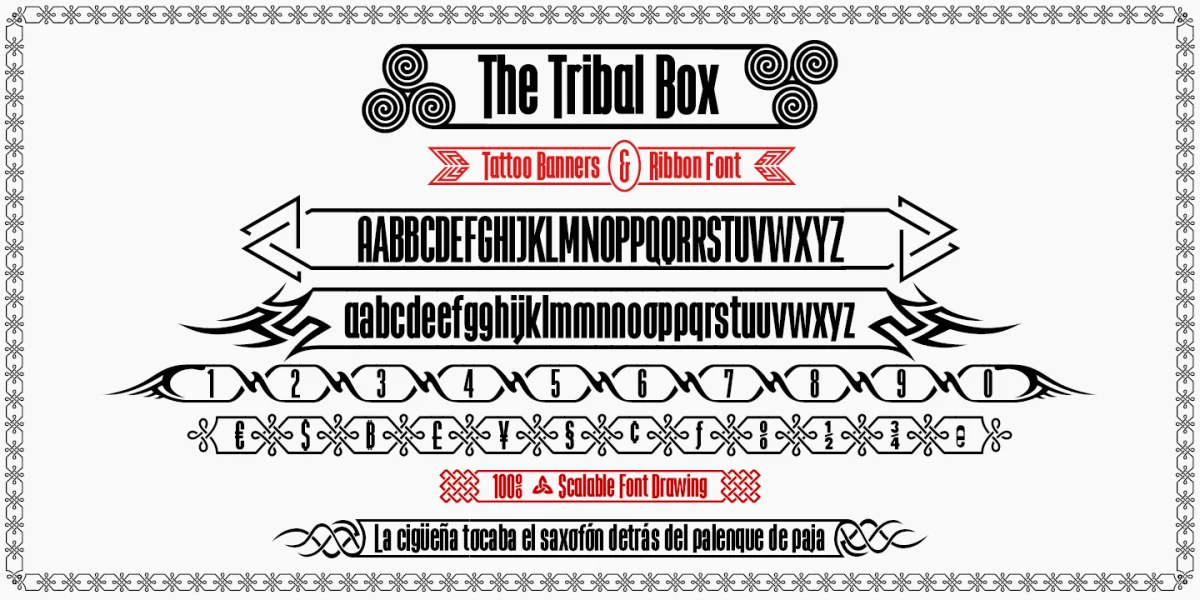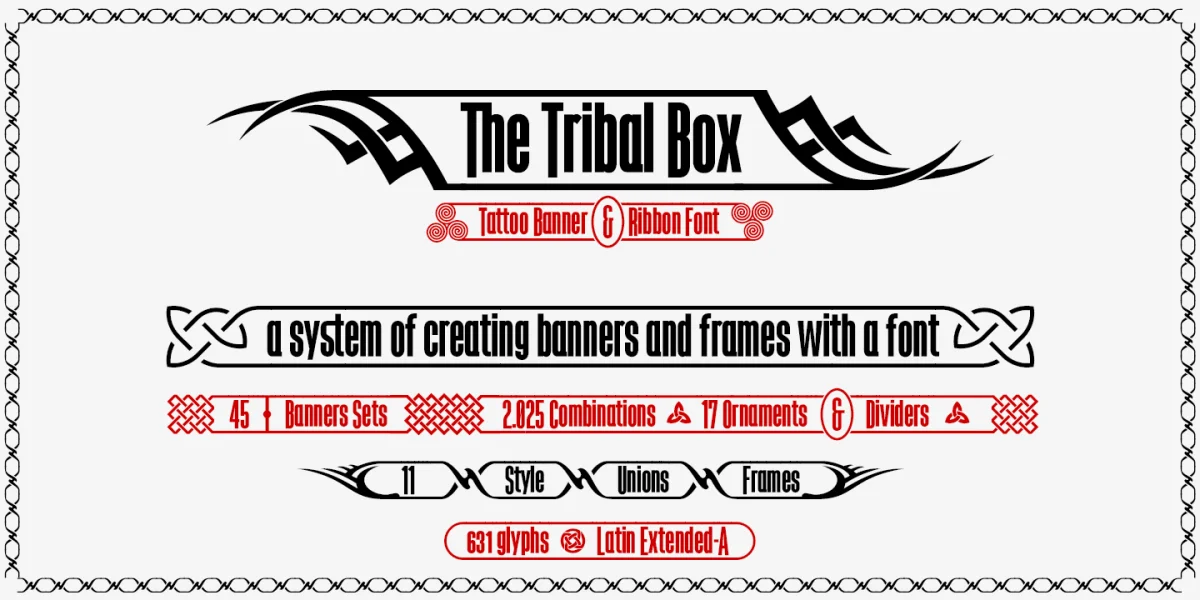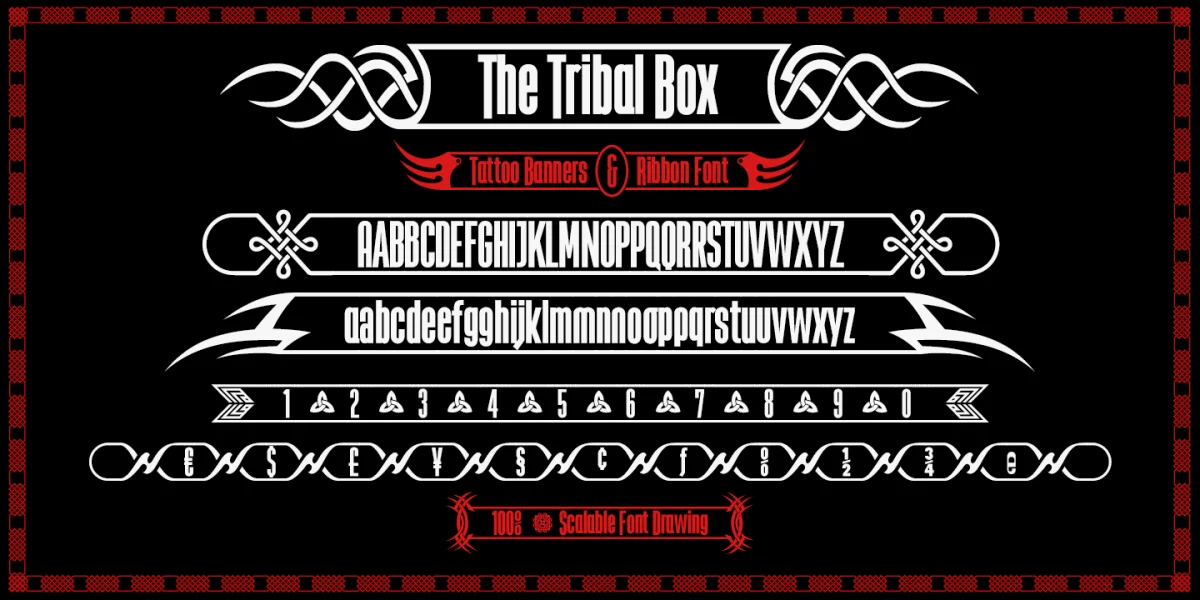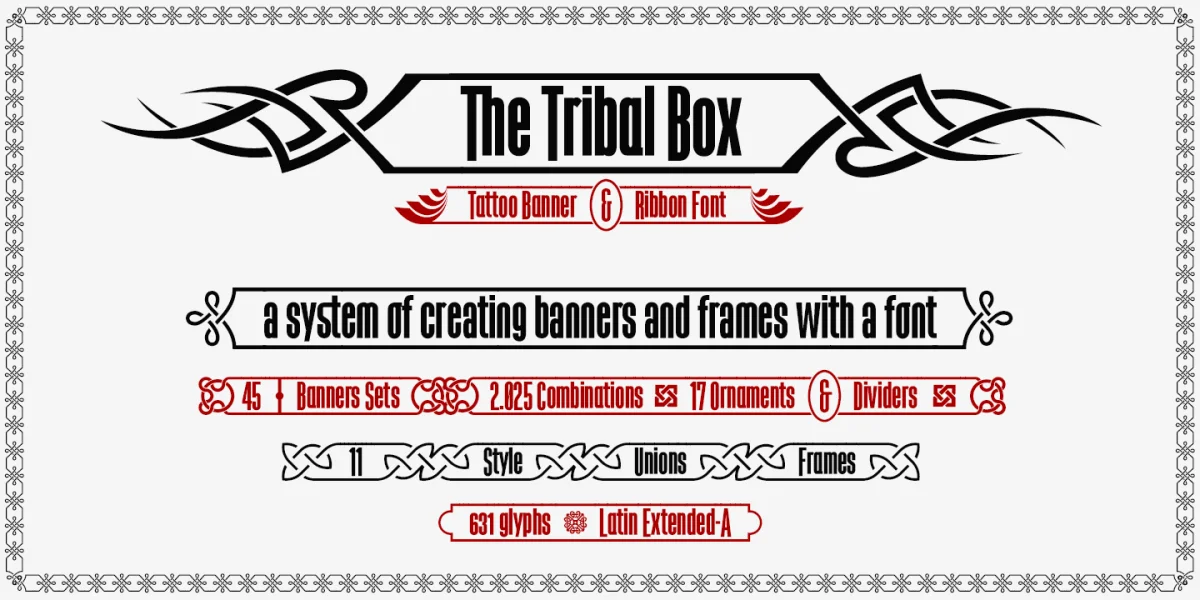
The Tribal Box is a sans-serif condensed font surrounded by a frame that includes OpenType ligatures system for creating multiple banners and frames, tattoo style. Include a complete key guide in pdf. FREE ONLY FOR PERSONAL USE
- Basic keys for ornaments and banners: () [] {} |¬ _ • * ~ ´ ` ¨ ^
Bitcoin symbol: (b#)